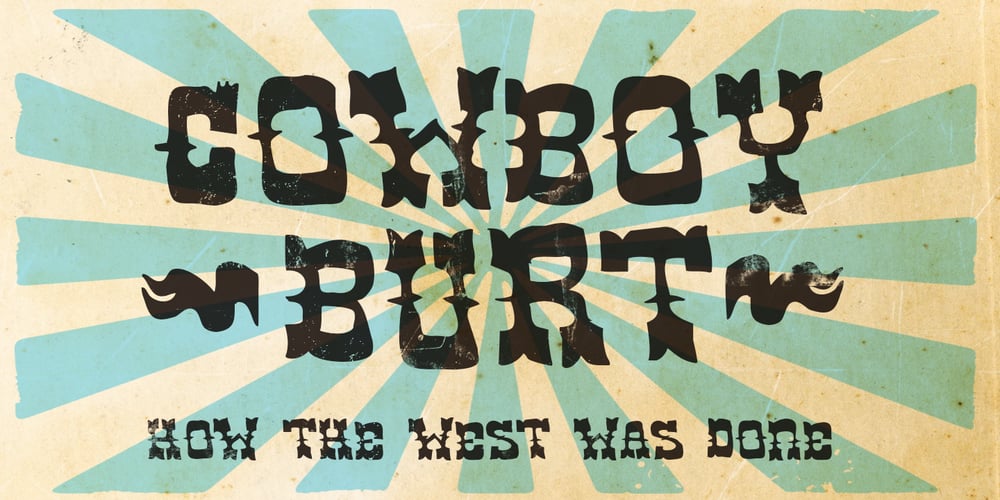
Cowboy Burt
Cowboy Burt font
Cowboy Burt Font Family was designed by Todd Dever and published by Cool Fonts. Cowboy Burt contains 2 styles and family package options. Cowboy Burt was once a cowboy, but now he’s a carnie at who runs the tilt-a -whirl. This hand drawn font was designed for use in a skate-punk layout, but will be quite at home in the old west, the circus, or underground cartoons. There are two versions Regular, and Extrude which work together or apart. There are even some goofy dingbats scatter throughout. You’ll have hours of fun with Cowboy Burt…Where’s my waitress?